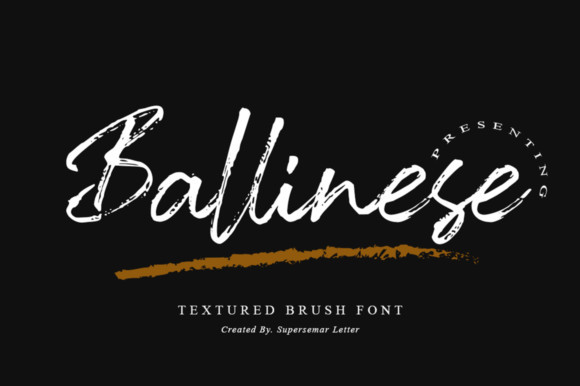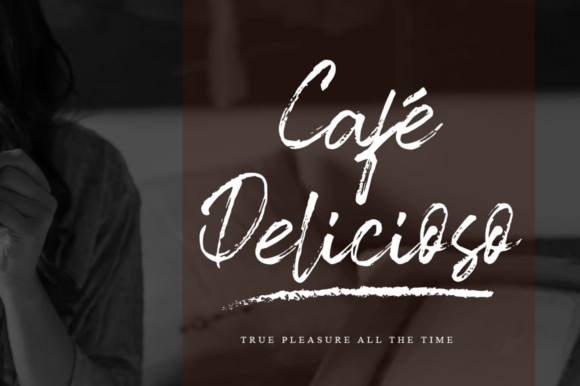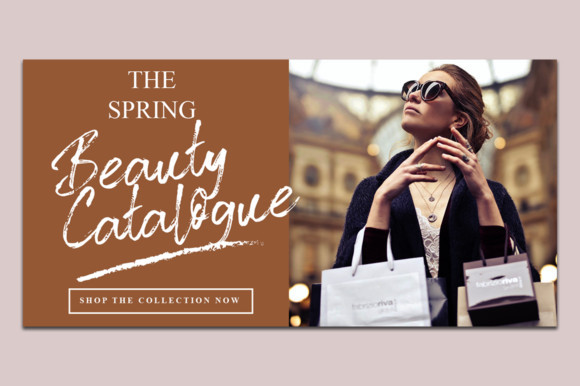
Ballinese Font
Ballinese is a futuristic brushed handwritten font. It looks wonderful in a variety of contexts, and it will add a trendy and unique touch to each of your designs.